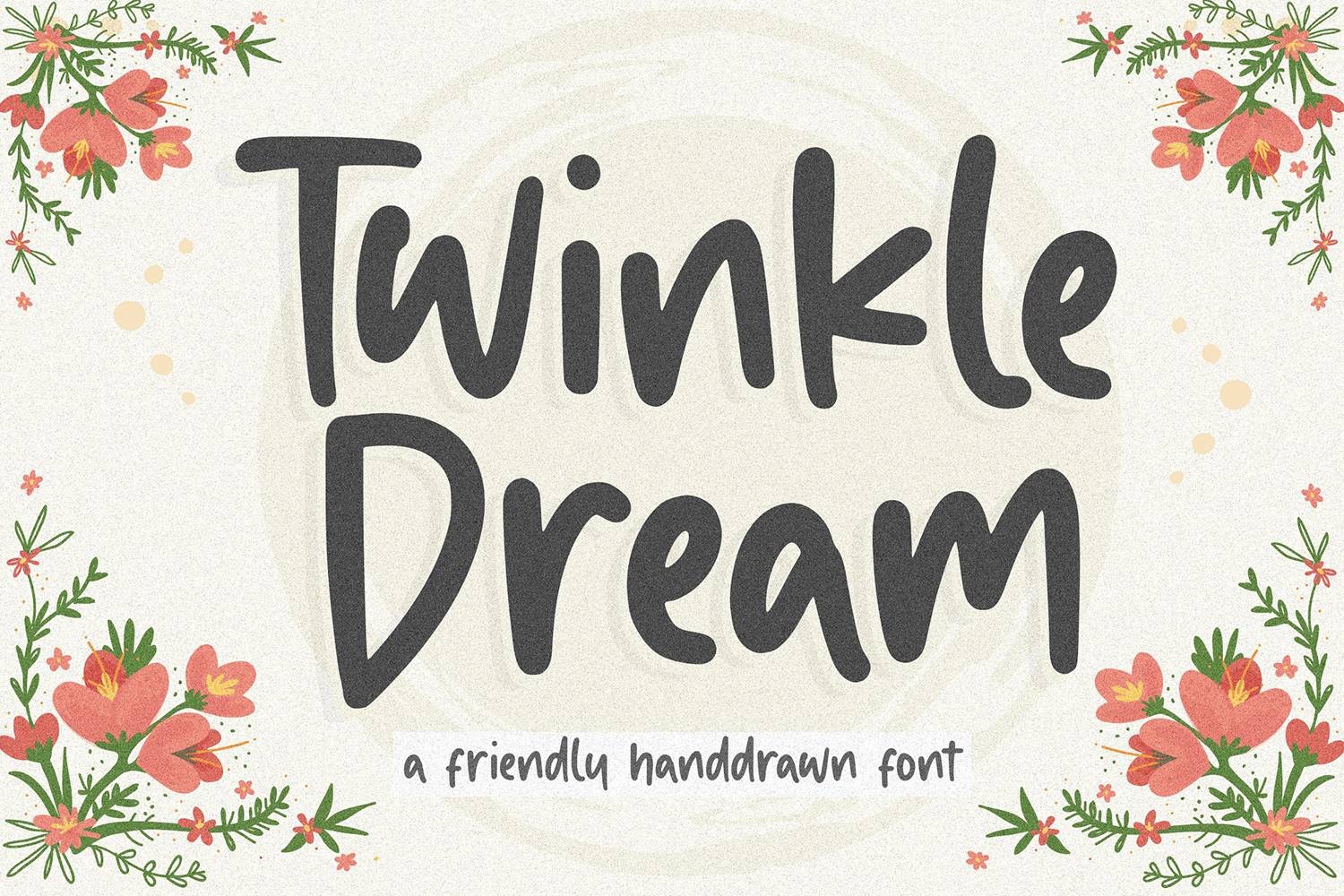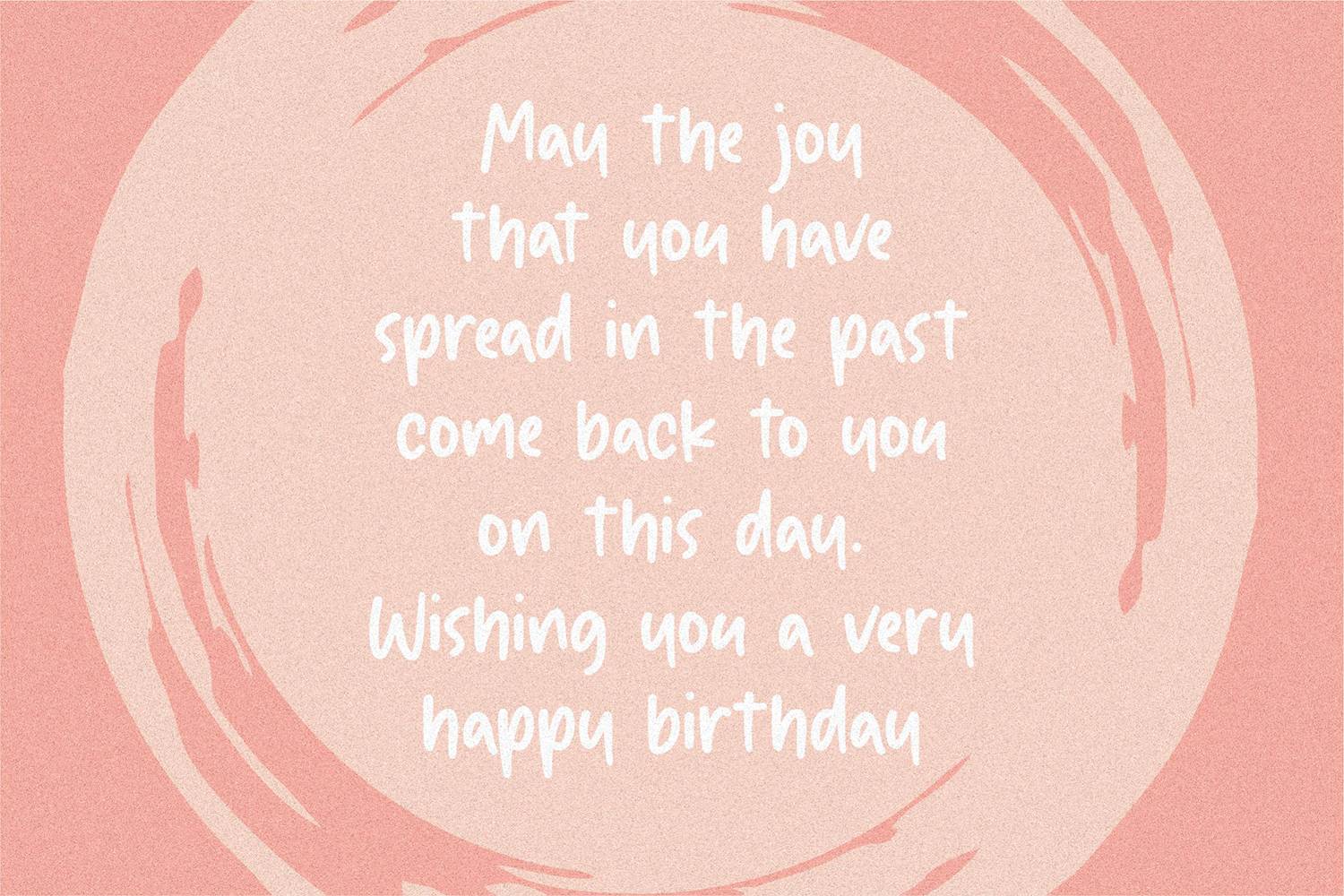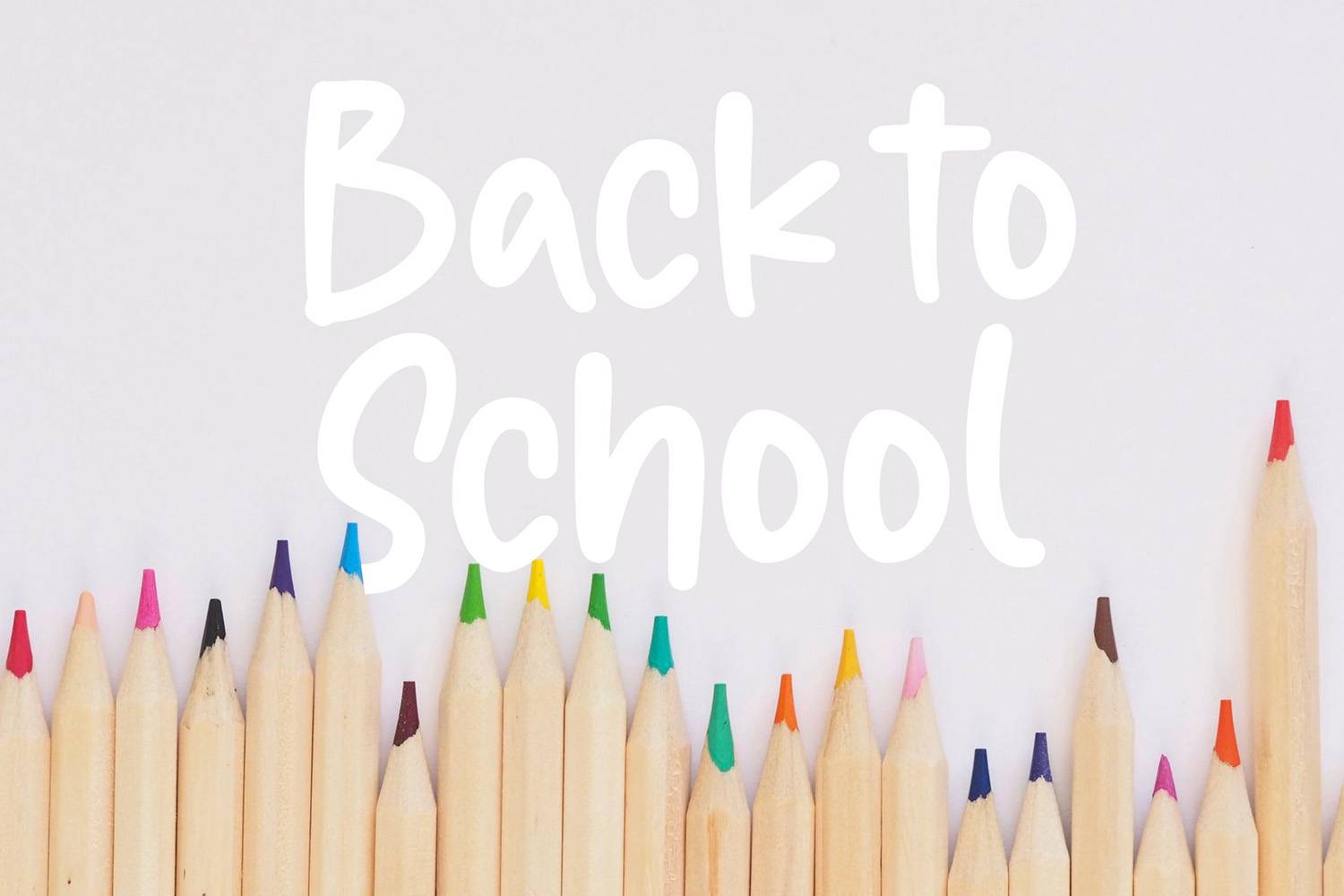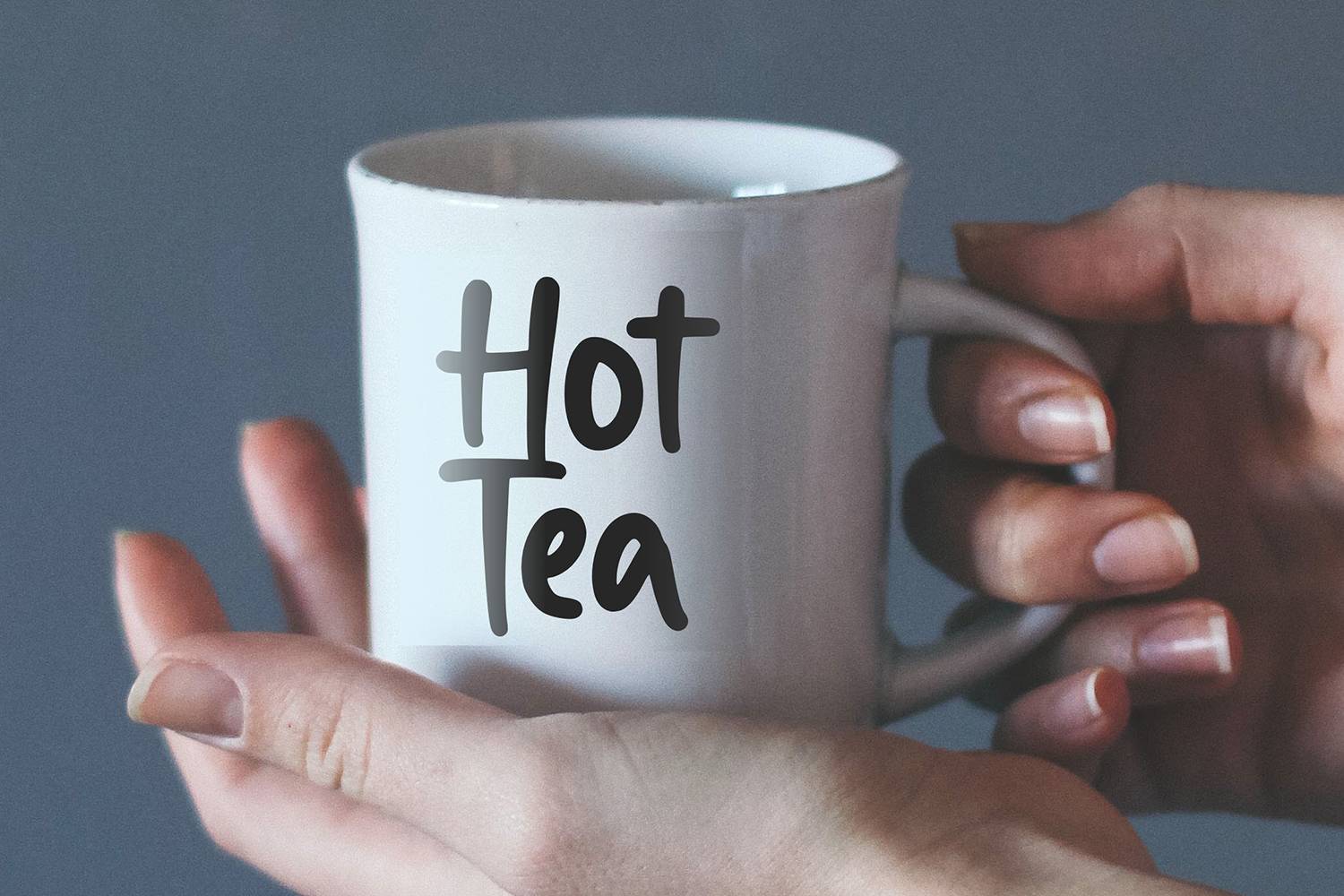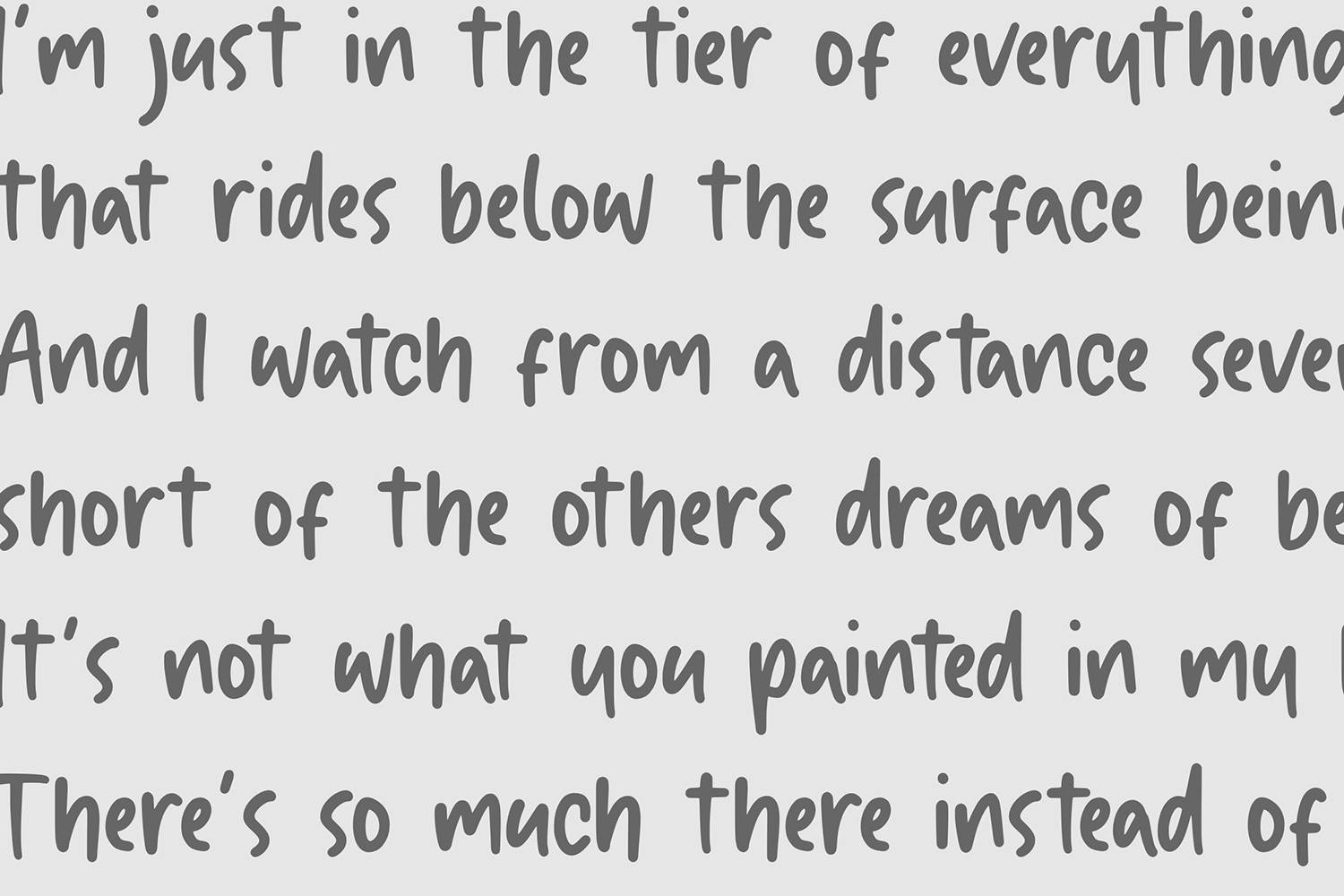
Twinkle Dream is a playful, casual handwritten font with a friendly and approachable feel. Its rounded, irregular strokes and uneven baseline give it a natural, lively character, making it ideal for informal designs like children’s books, greeting cards, or creative branding. The font’s clear, legible letterforms and simple style add warmth and personality without sacrificing readability.
Twinkle Dream Font
About Twinkle Dream Font